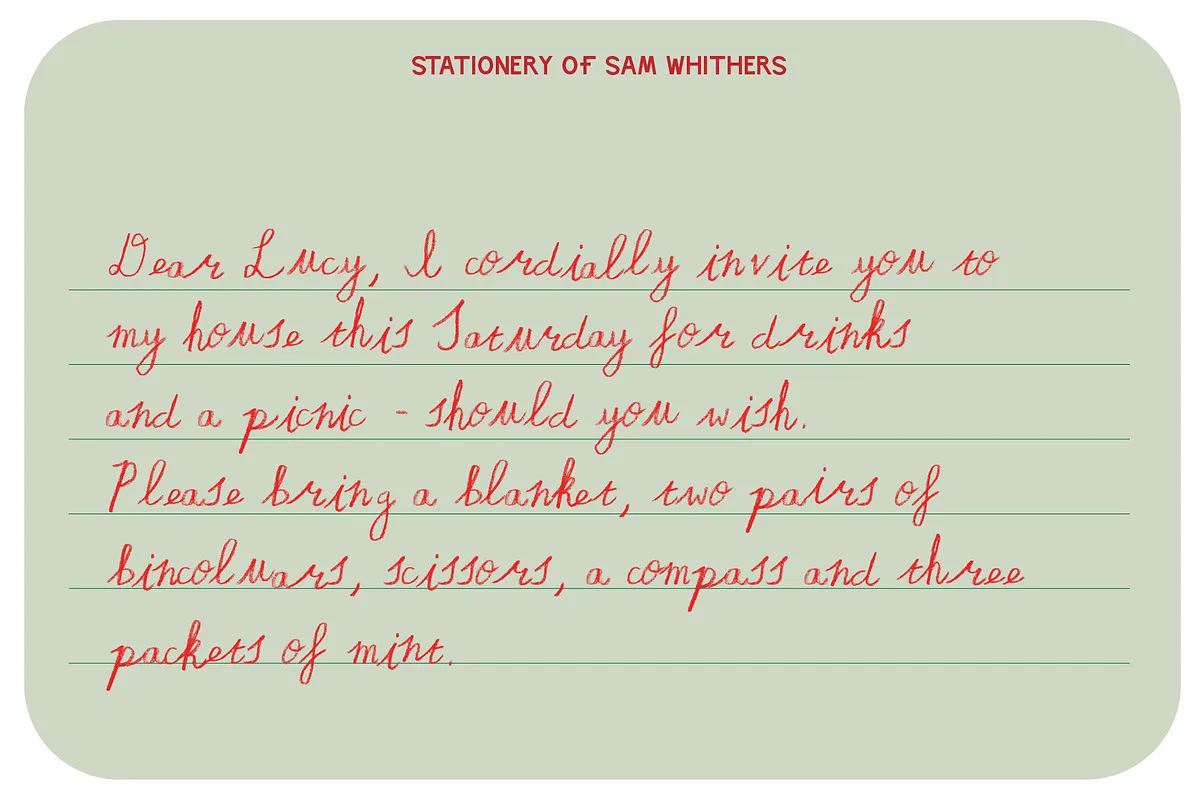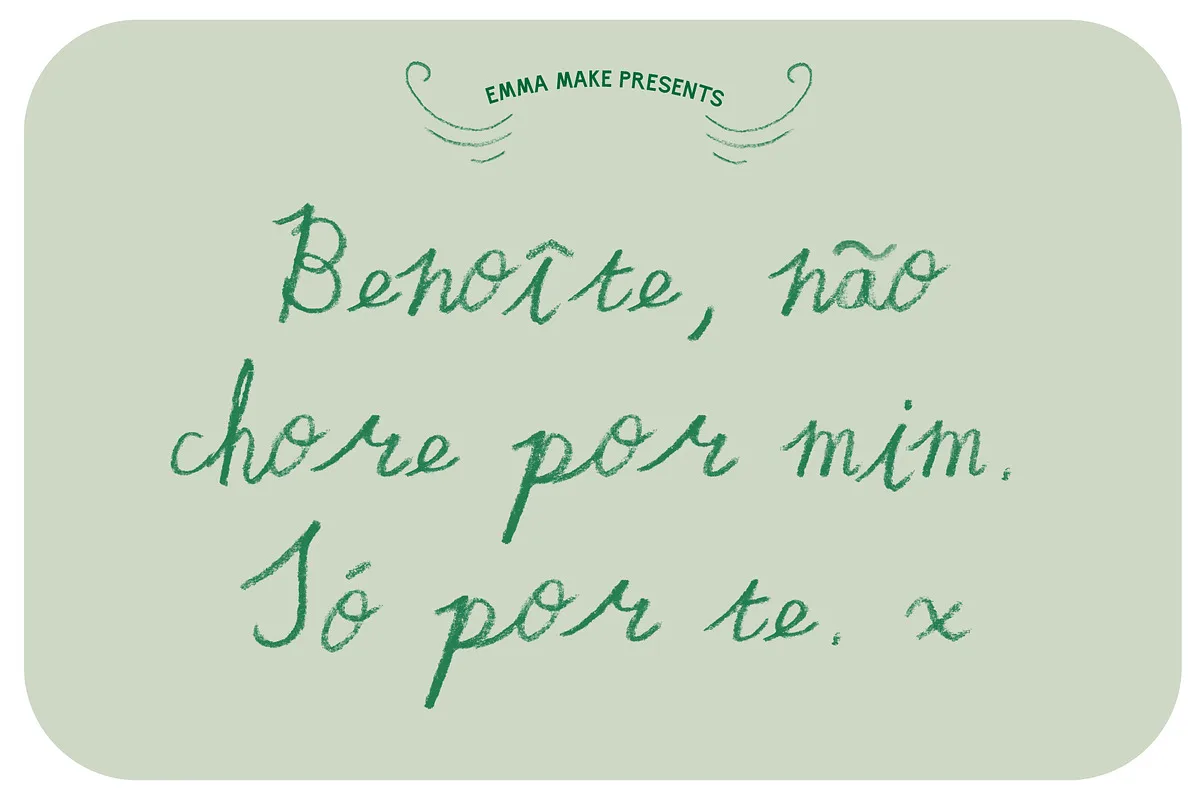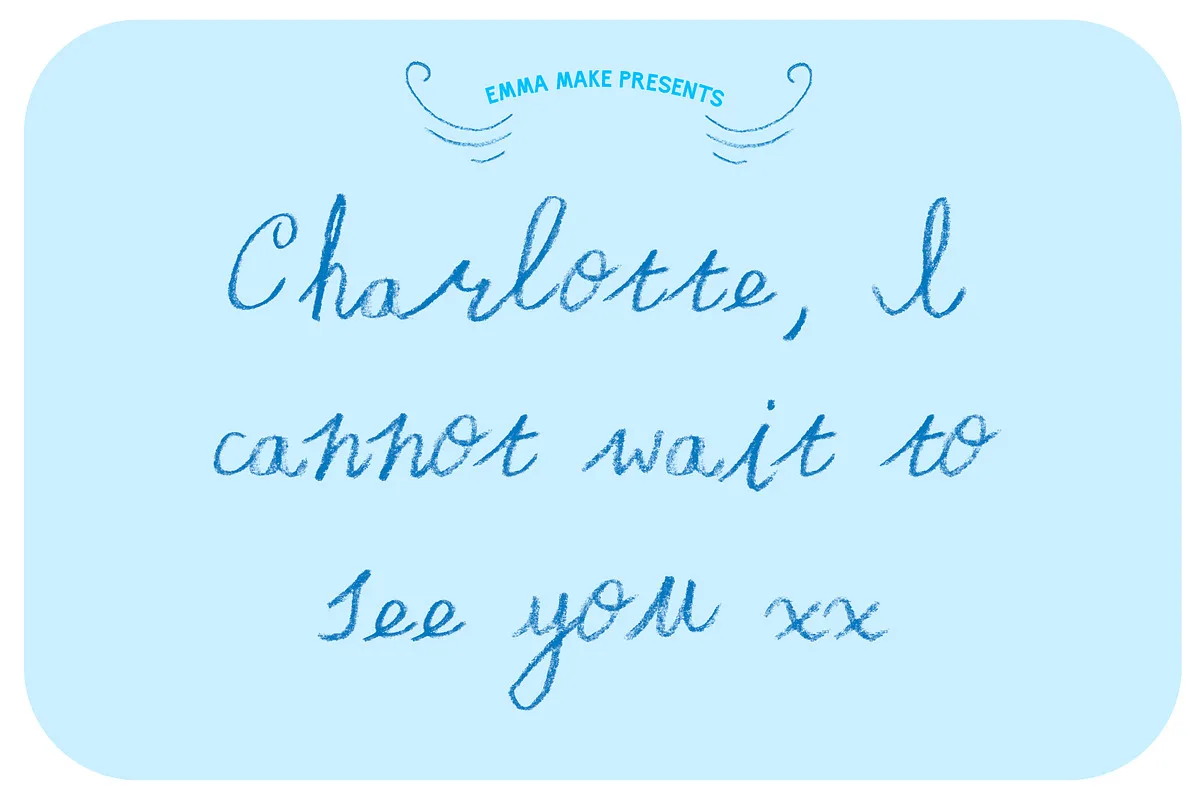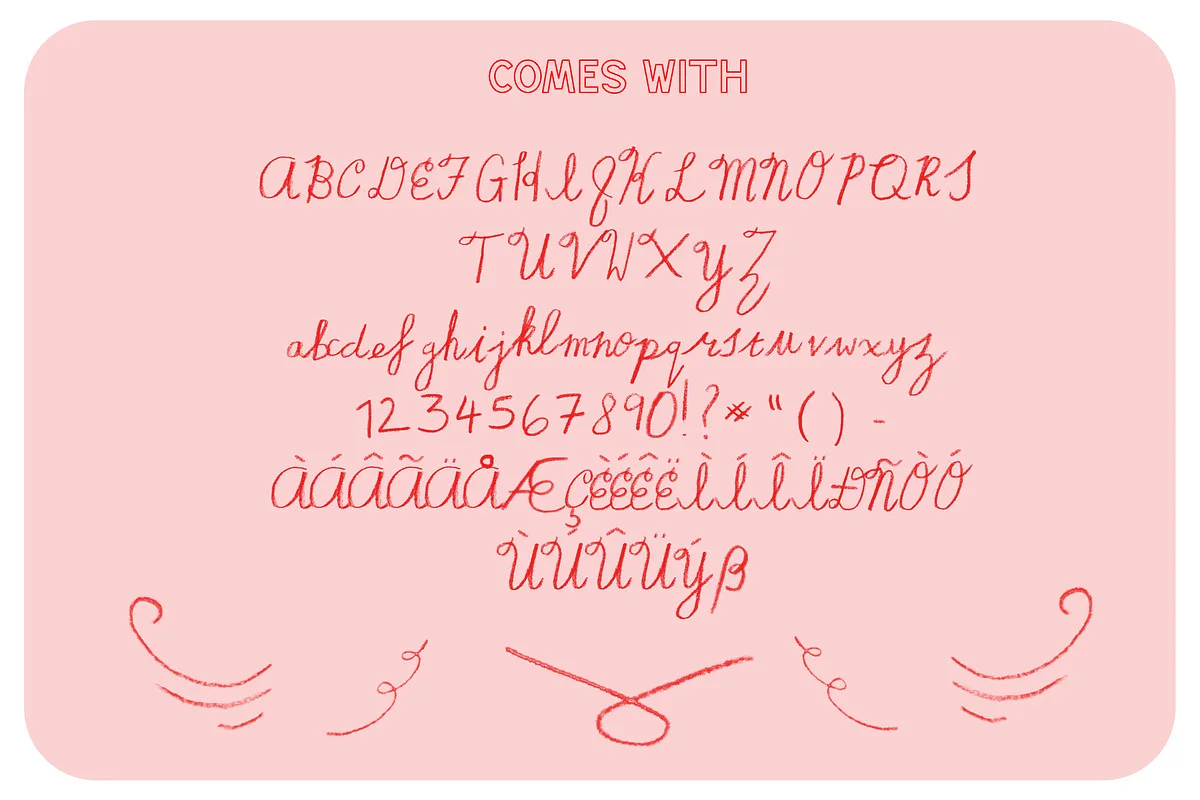
Dear Camille Font
Dear Camille Font is a sweet handwritten pencil crayon type with as much tenderness and character as a love letter. Perfect for letters, stationery, invites and websites.
Dear Camille font preview — sample text
Dear Camille font alphabet, numbers and glyphs
Dear Camille font style preview
Dear Camille font used in a design mockup